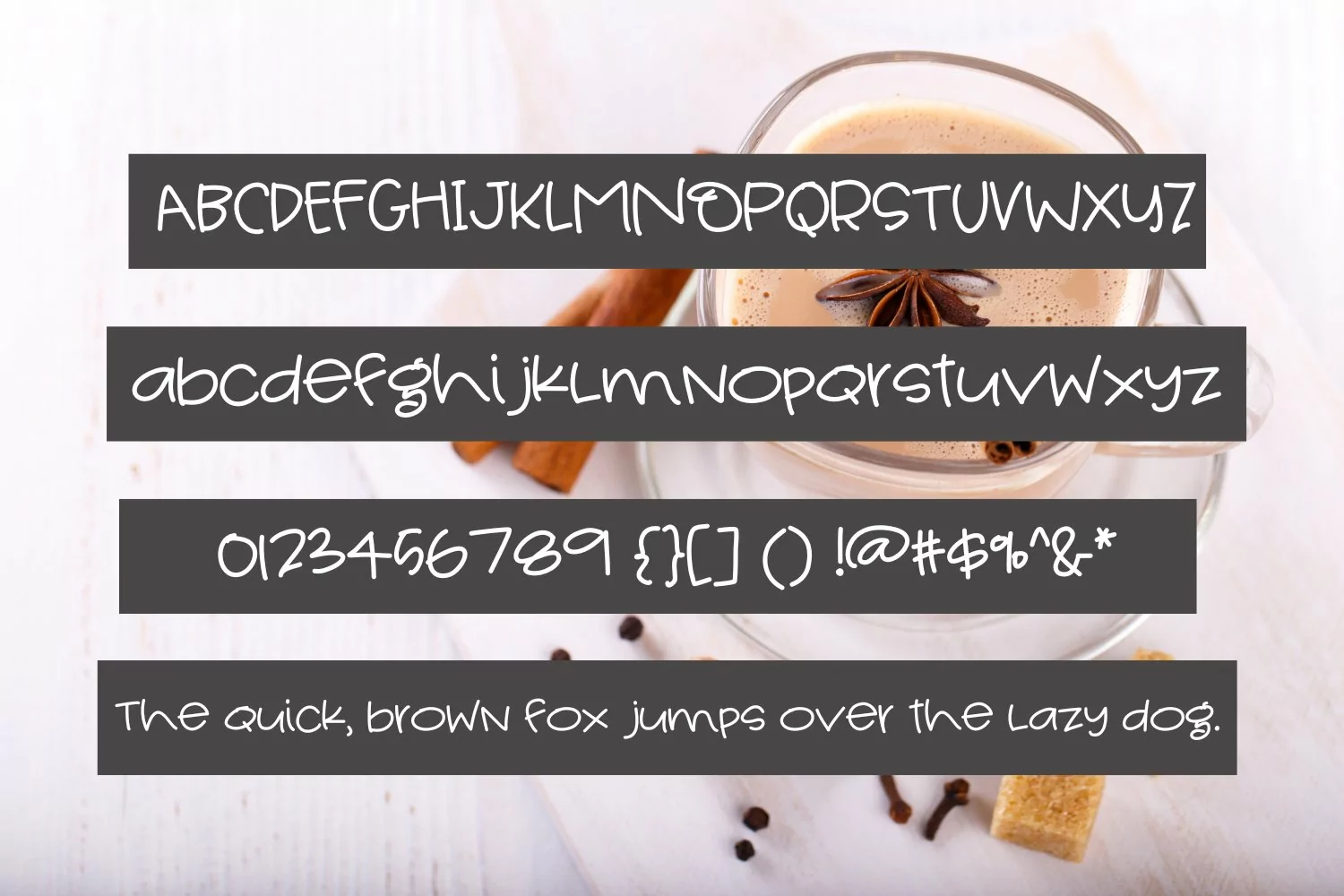
Pumpkin Chai is a sweet and simple handwritten font that is perfect for many design projects! It comes in True Type (TTF) and Open Type (OTF) font files, and includes the Basic Latin (English) character set.